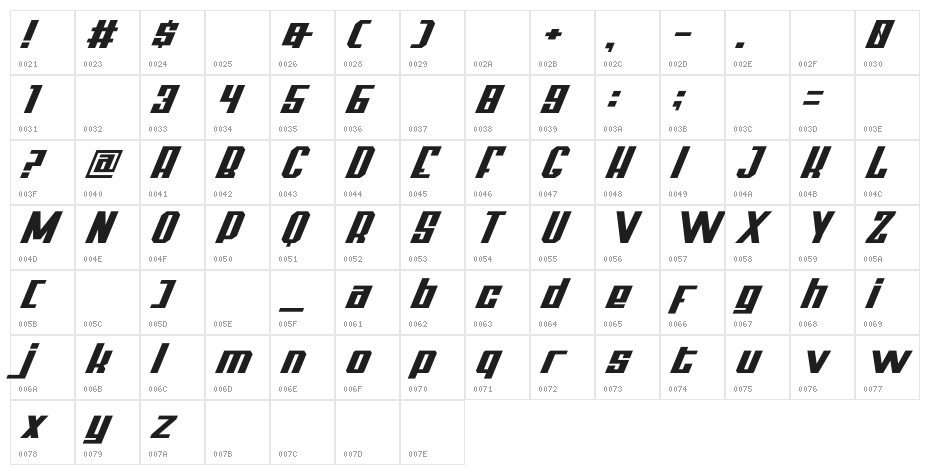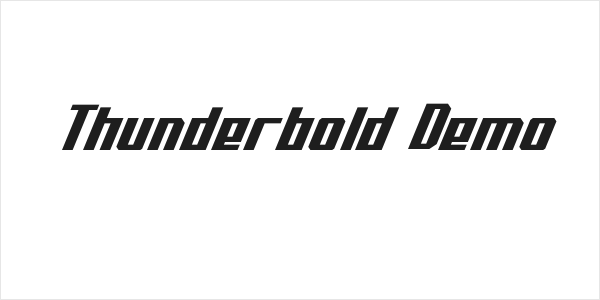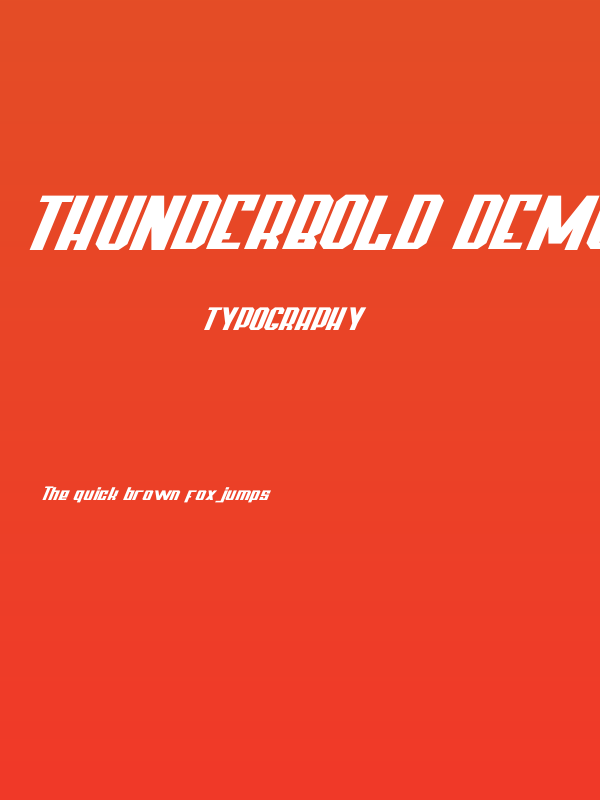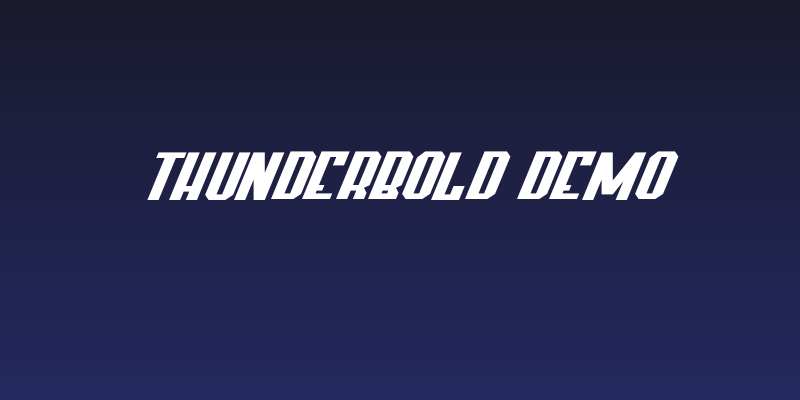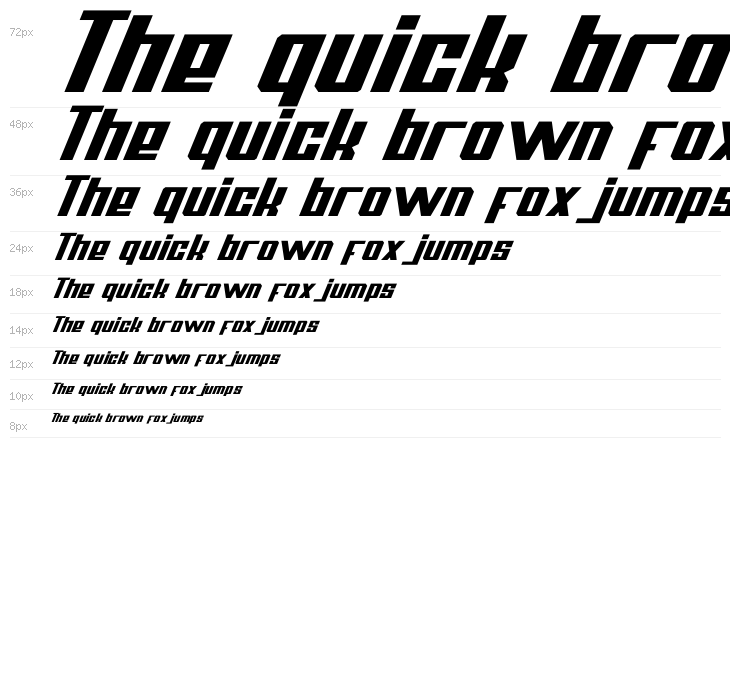
Thunderbold Demo Font
Thunderbold Demo Description
This font features a bold and dynamic style with sharp, angular edges and a strong presence. The uppercase and lowercase letters maintain a consistent slant, giving the typeface a sense of motion and energy. The numbers and special characters are designed to match the boldness of the alphabet, ensuring a cohesive look across all text elements. The font's geometric shapes and thick strokes make it highly legible, even at smaller sizes, while the italicized slant adds a modern and edgy touch. This typeface is ideal for projects that require a striking and impactful visual statement.